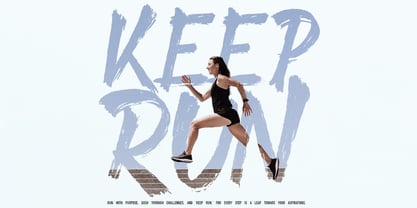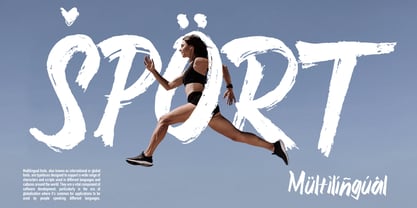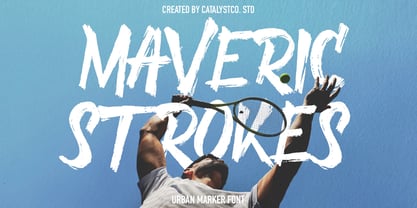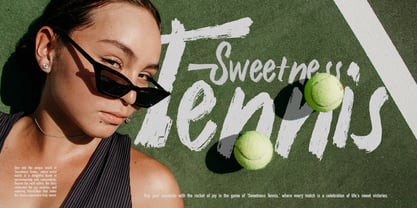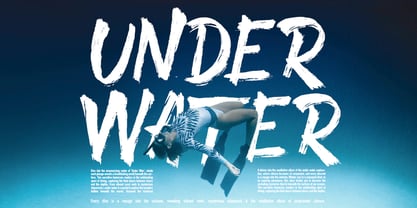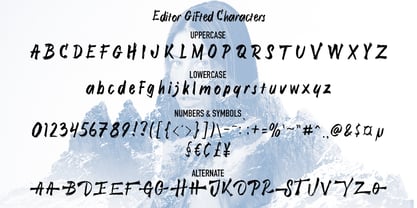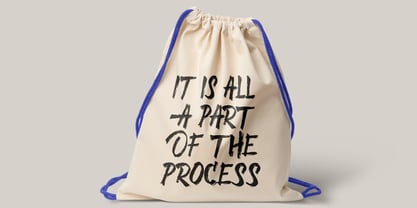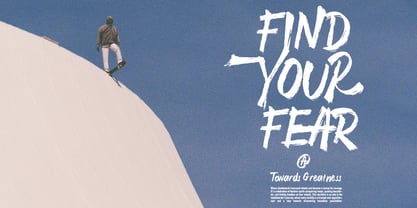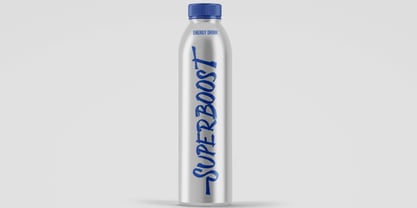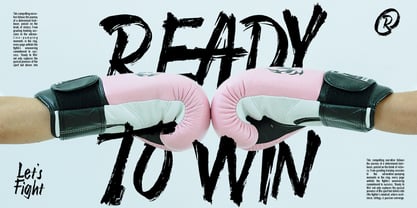
Maverick Strokes
von Catalystco Std
Die Schriftfamilie Maverick Strokes wurde von entworfen und von Catalystco Std veröffentlicht. Maverick Strokes enthält 1 Stile. Mehr über diese Familie
Maveric Strokes is a bold brush marker font designed to inject raw energy and motion into your visuals. This typeface emulates the look of high-impact dry brush strokes, perfect for sports branding, urban posters, streetwear ads, social campaigns, and action-oriented visuals. The font includes uppercase, lowercase, numerals, punctuation, symbols, and alternate characters to add even more customization and authenticity to your designs. Maveric Strokes is perfect for any creative project demanding movement, confidence, and raw visual texture. Whether you’re creating fitness or boxing posters, athletic event promotions, street fashion branding, or digital graphics for YouTube and Twitch banners this font delivers a powerful impact.